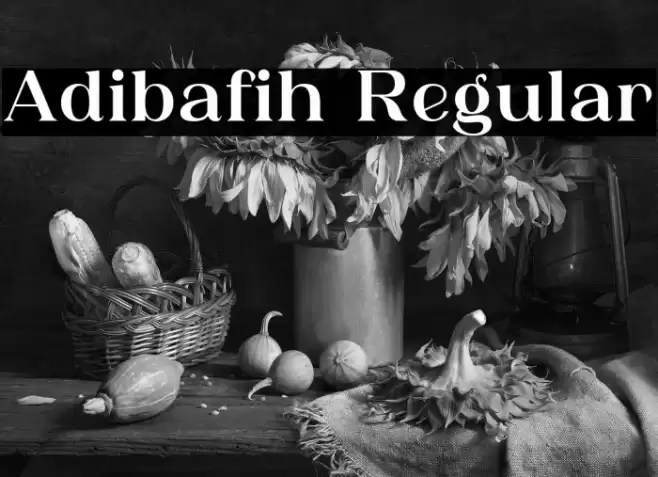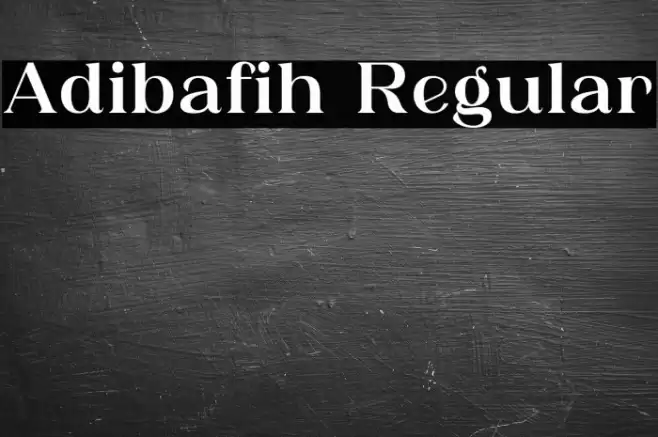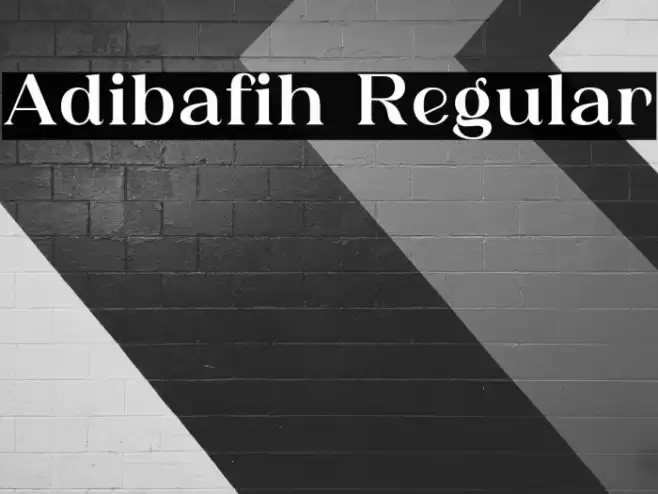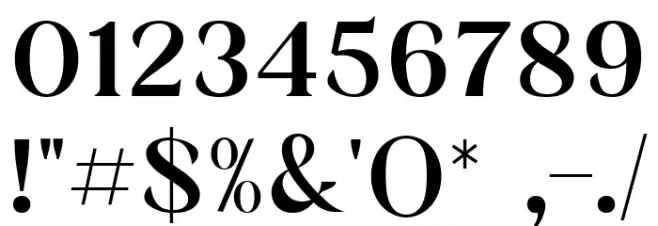
Adibafih Regular Font
Adibafih Regular Description
This font exhibits a classic serif style with elegant, slightly curved serifs that add a touch of sophistication. The uppercase letters are bold and commanding, while the lowercase letters maintain a balanced and harmonious appearance. The numerals are distinct and clear, ensuring readability. Special characters are designed with the same attention to detail, making them suitable for various applications. The overall design is timeless, making it versatile for both traditional and modern uses.
A classic serif font with elegant curves and balanced proportions from Regular fonts.
- Proposed Projects: Ideal for editorial design, book covers, formal invitations, and branding projects that require a touch of elegance.
- Overall Style: Classic